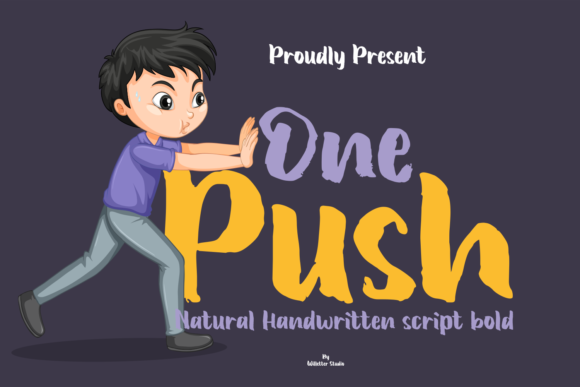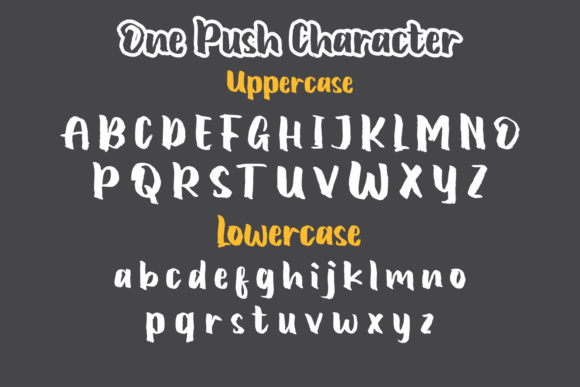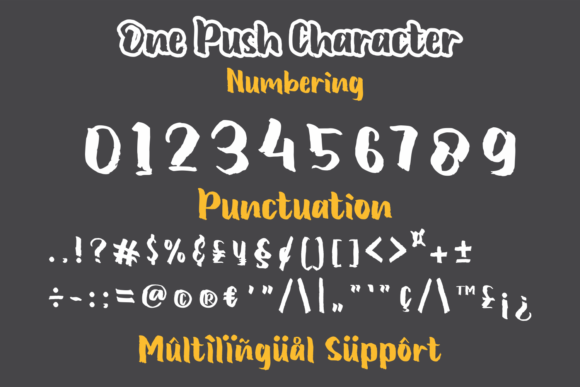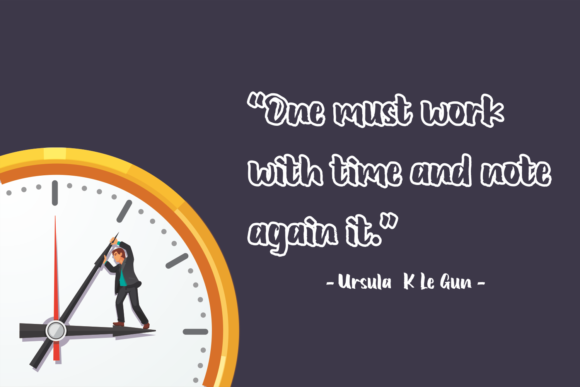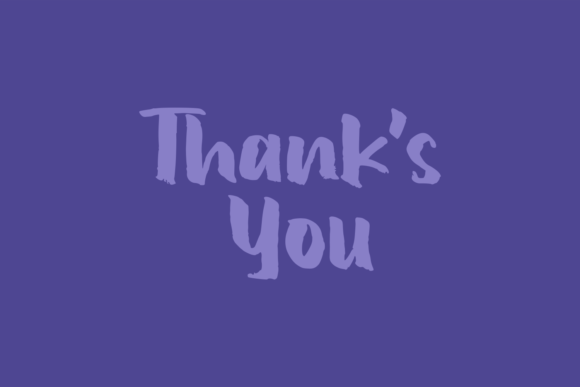
One Push Font
About One Push Font
One Push sounds like a delightful and versatile handwritten font with its sweet, flowing, and chunky lettered design. Its combination of charm and style makes it a perfect choice for a wide range of design projects. Here are some ideas on how to use One Push to bring your creative ideas to new heights:
1. Children’s Books and Illustrations: Create captivating and playful children’s book covers, titles, and illustrations using One Push font for a fun and whimsical touch.
2. Handmade Crafts: Use One Push to design labels, tags, and packaging for handmade products, such as candles, soaps, and artisanal goods, to add a personal and charming appeal.
3. DIY Projects: Incorporate One Push into DIY project tutorials, crafting videos, or digital templates to enhance the creative experience and make instructions visually engaging.
4. Social Media Graphics: Design eye-catching and unique social media posts, stories, and banners with One Push font to stand out and add a touch of personality to your brand.
5. Birthday Invitations: Create fun and exciting birthday party invitations and event details with One Push font to set the tone for a celebration filled with joy and happiness.
6. Stickers and Decals: Design adorable and quirky stickers or decals using One Push font for personalizing laptops, water bottles, or notebooks with a touch of charm.
7. Greeting Cards: Craft heartwarming and cheerful greeting cards for various occasions, such as birthdays, holidays, or just to brighten someone’s day, with One Push font.
8. Blog and Website Headers: Use One Push font for blog or website headers, titles, and banners to add a playful and inviting atmosphere to your online presence.
9. Scrapbooking: Incorporate One Push into digital or physical scrapbooking projects to add a handcrafted and endearing element to your memories.
10. Quote Prints: Design uplifting and inspirational quote prints or wall art using One Push font for a motivational and positive touch to any space.
11. Party Decorations: Create fun and engaging party decorations, such as banners, posters, and place cards, using One Push font to infuse a celebratory vibe.
12. Recipe Cards: Use One Push font to design recipe cards for sharing your favorite dishes with friends and family in a charming and inviting way.
13. Artistic Lettering: Experiment with One Push font to create artistic lettering pieces with different coloring techniques, such as watercolors or markers.
14. Event Flyers: Design eye-catching and inviting event flyers or posters with One Push font for a lively and memorable promotion.
15. School Projects: Use One Push font in school presentations, posters, or creative assignments to add a touch of creativity and originality.
16. Personalized Gifts: Apply One Push font to create personalized gifts, like custom mugs, keychains, or T-shirts, for a thoughtful and unique present.
17. Bookmarks: Design adorable and charming bookmarks using One Push font, making reading sessions even more delightful.
18. Handwritten Quotes: Use One Push font to write out handwritten quotes or messages in digital art, social media graphics, or printed artworks.
19. Tote Bags and Merchandise: Incorporate One Push font into designs for tote bags, merchandise, or promotional items to create cute and memorable products.
20. Art Prints: Create one-of-a-kind art prints using One Push font to showcase the font’s charming and flowing letterforms.
In summary, One Push’s sweet, flowing, and chunky lettered design makes it a versatile and endearing font for a wide range of creative projects. From children’s books to social media graphics, from party decorations to personalized gifts, One Push has the potential to add a touch of charm and joy to all your creative endeavors. Embrace the playful and captivating nature of One Push and watch your ideas come to life at the highest level of creativity!